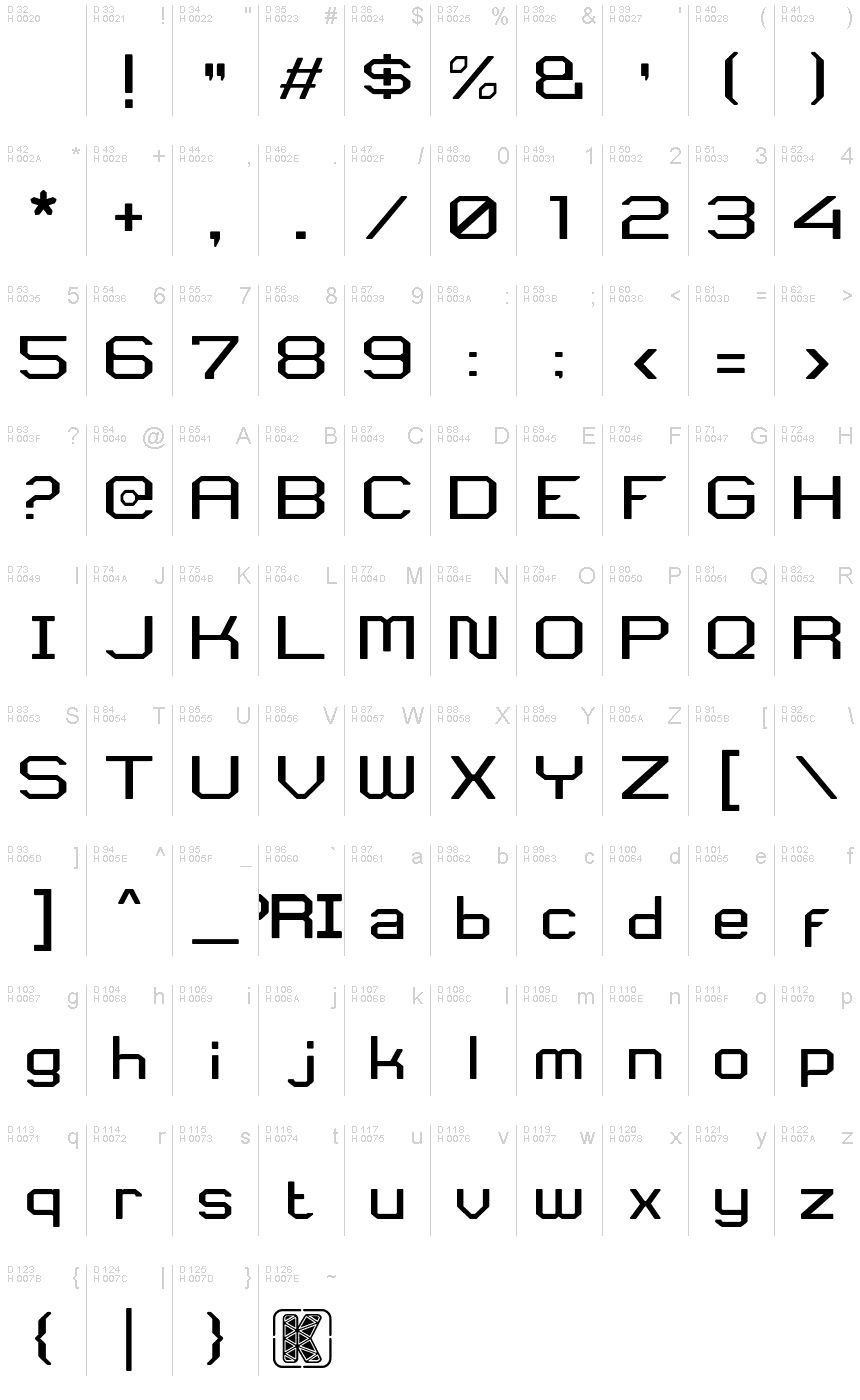
KPRINT2
KPRINT is a revolutionary display font crafted by the talented Alex Genderuwo. Its semi-light weight and expanded width make it ideal for headlines, posters, and banners. The techno style of KPRINT adds a futuristic vibe to any design project. With its unique characteristics, this font is perfect for tech-related projects such as gaming websites, software companies, and electronic device manufacturers. KPRINT caters to those who seek innovation and creativity in their designs. Get ready to impress your audience with the boldness of KPRINT!